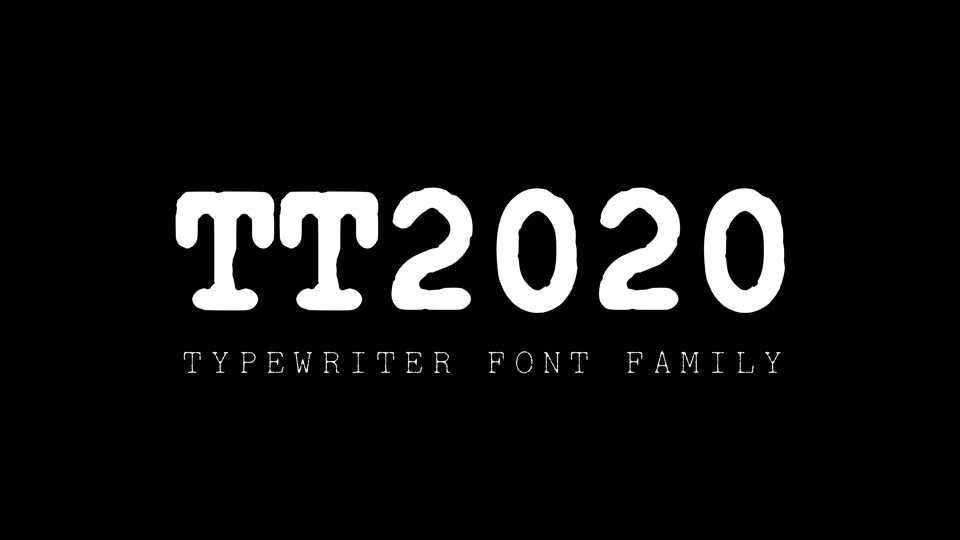
Download TT2020 typeface, an advanced, mulilingual and free typewriter font family for a new decade. TT2020 comes in 3 weights from Light to Bold and includes ten copies of each glyph.
Designer: Fredrick Brennan